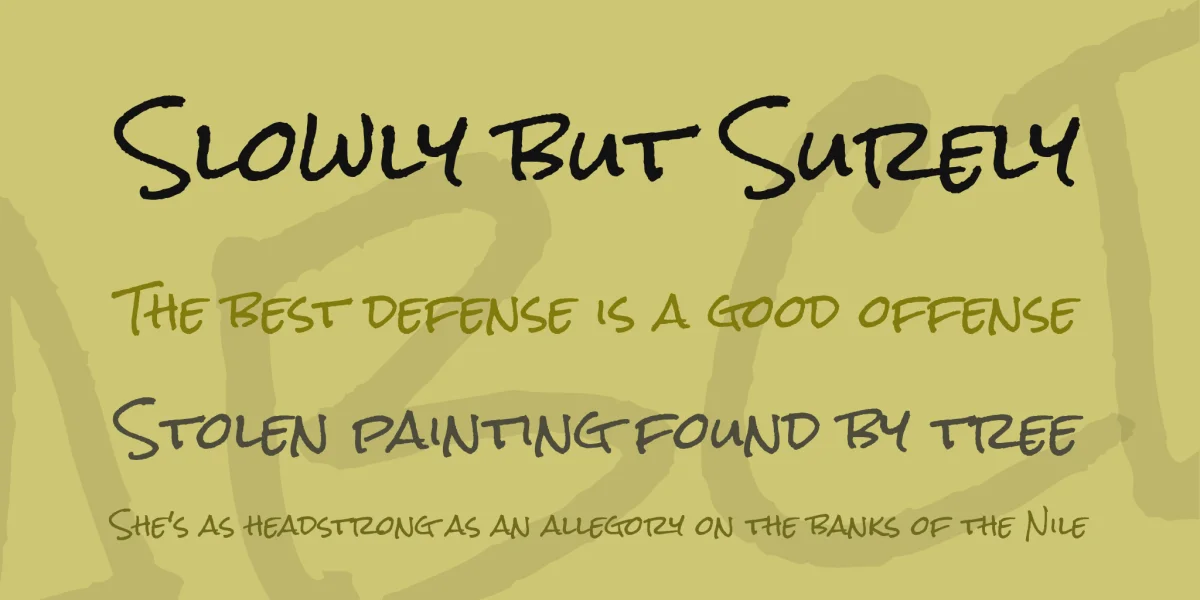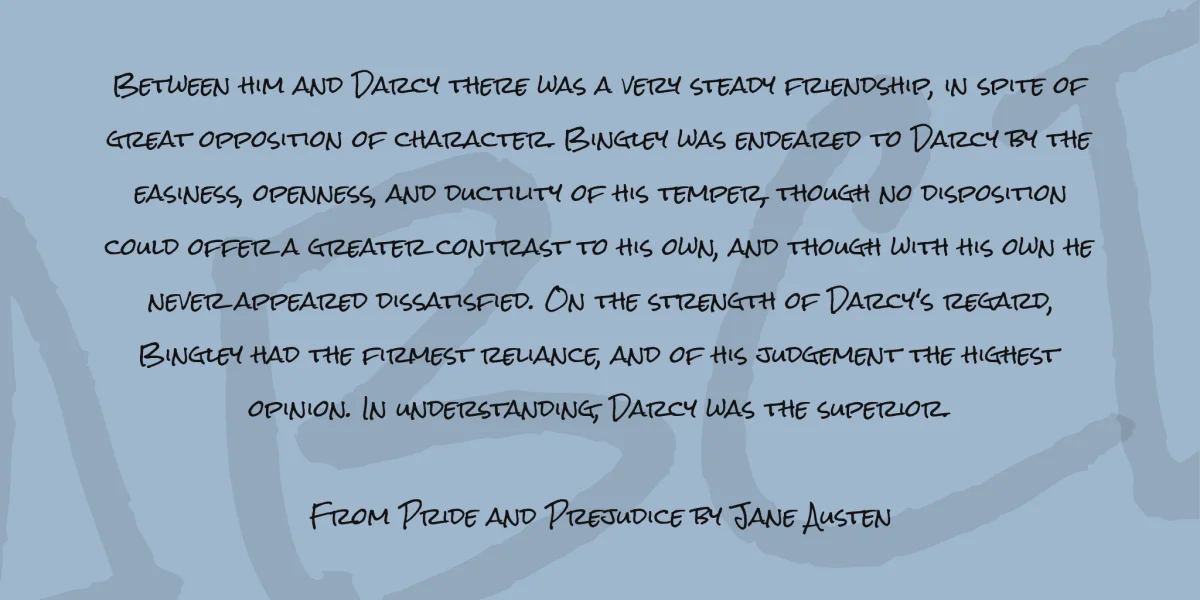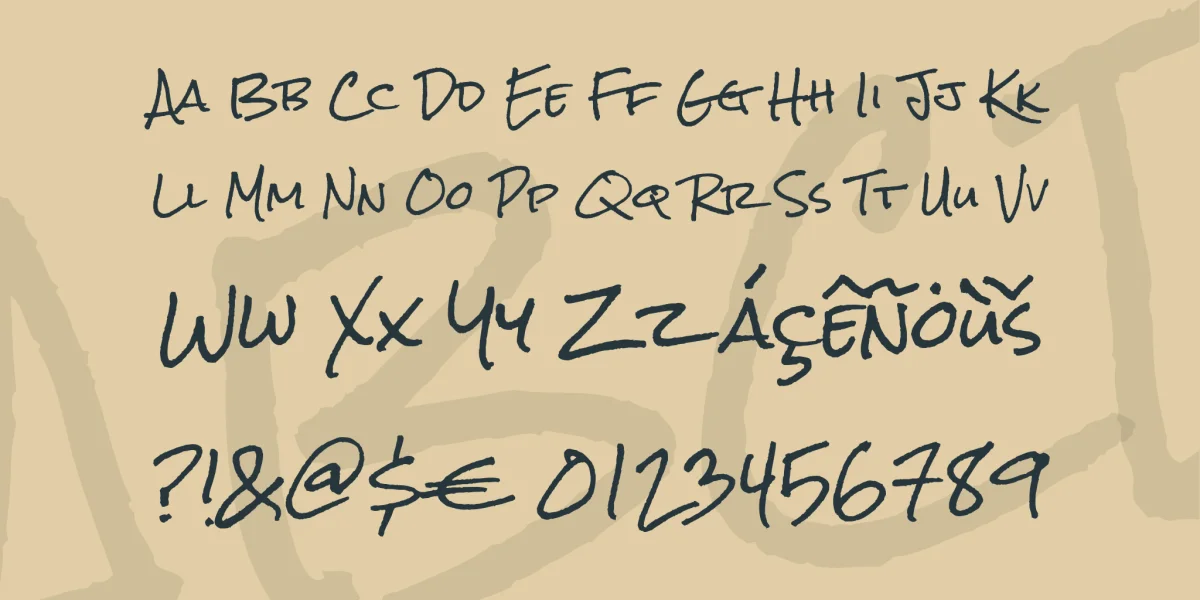
Does your brain freeze up every time you need a zippy, casual hand-lettered look? Well, prepare to thaw it out with Rock Salt by Squid! Rock Salt was hand-crafted with felt-tip markers for a personal look you can pepper throughout your next project.